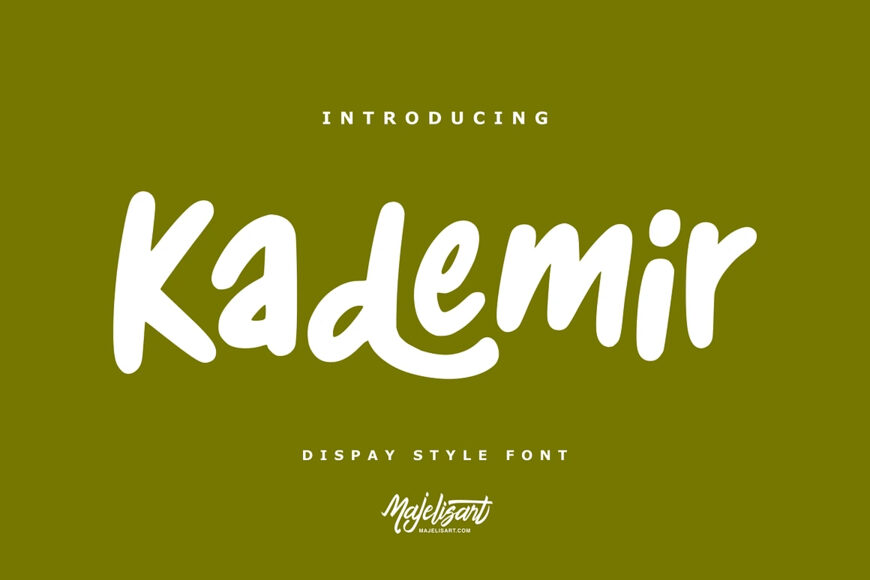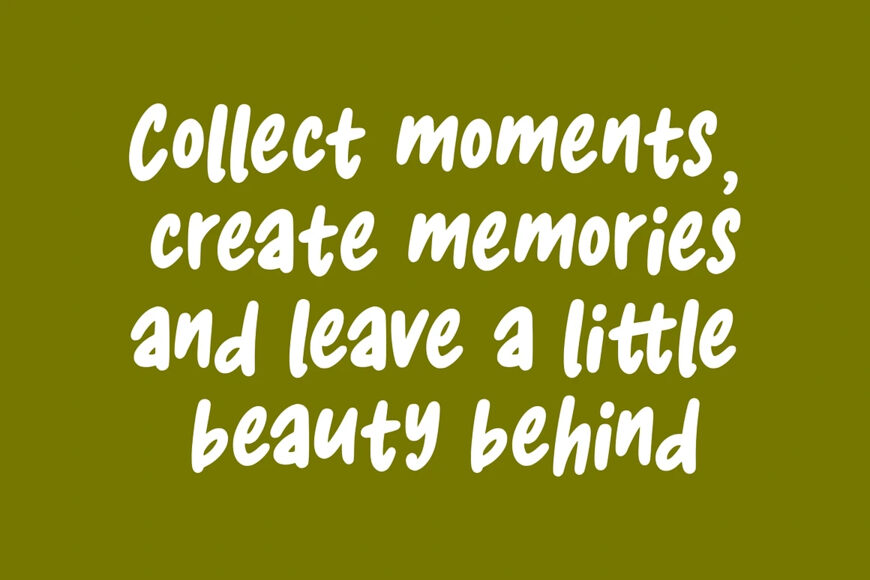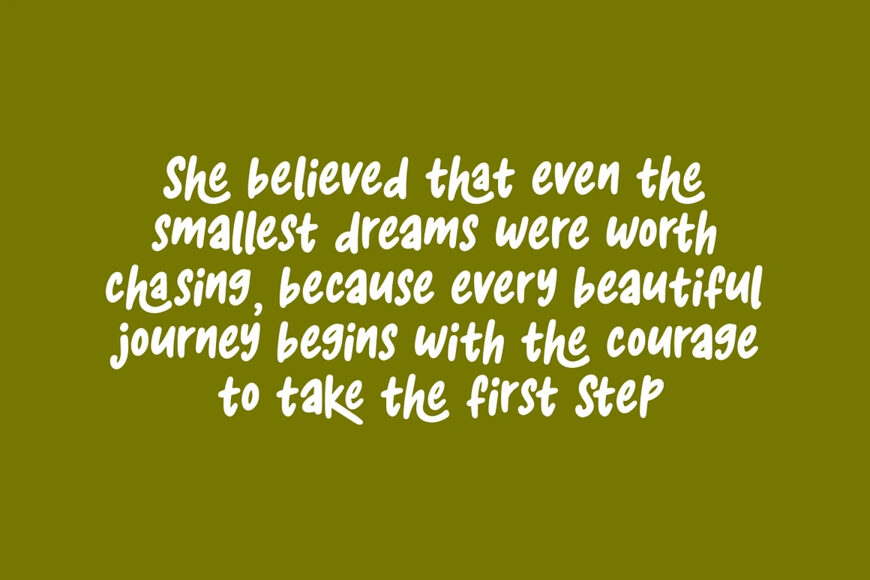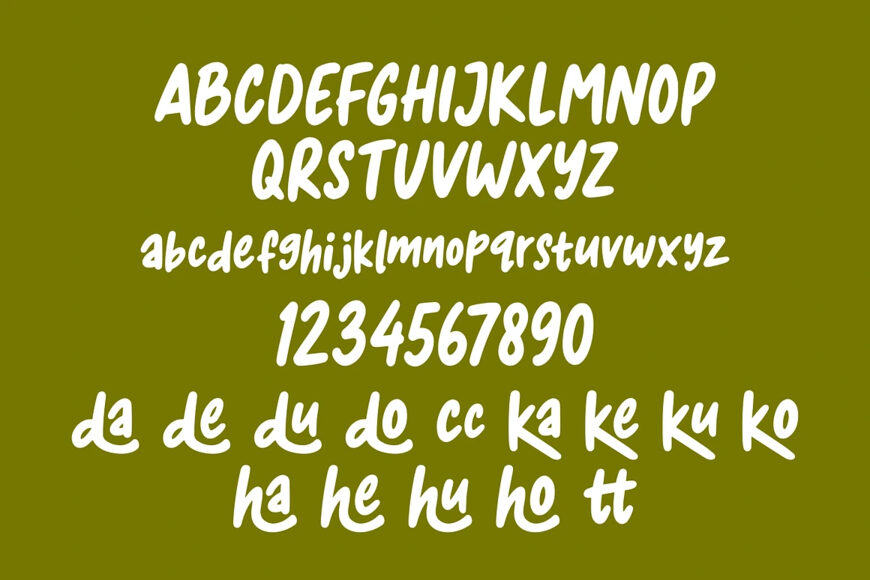
Introducing Kademir, a bold and expressive display typeface designed to bring a fun, confident, and handcrafted feel to your creative projects.
With its thick strokes, smooth curves, and playful handwritten character, Kademir creates a strong visual presence while keeping a warm and approachable personality. Its casual yet distinctive appearance makes it perfect for eye-catching headlines and creative branding.